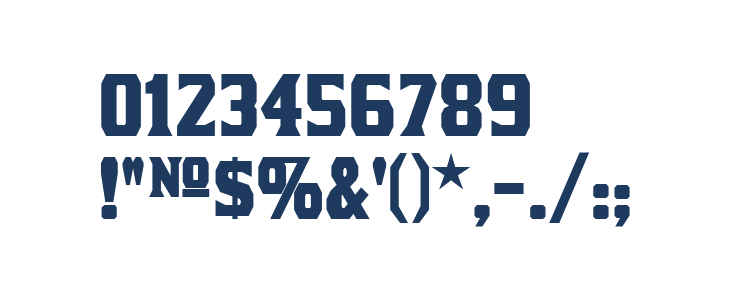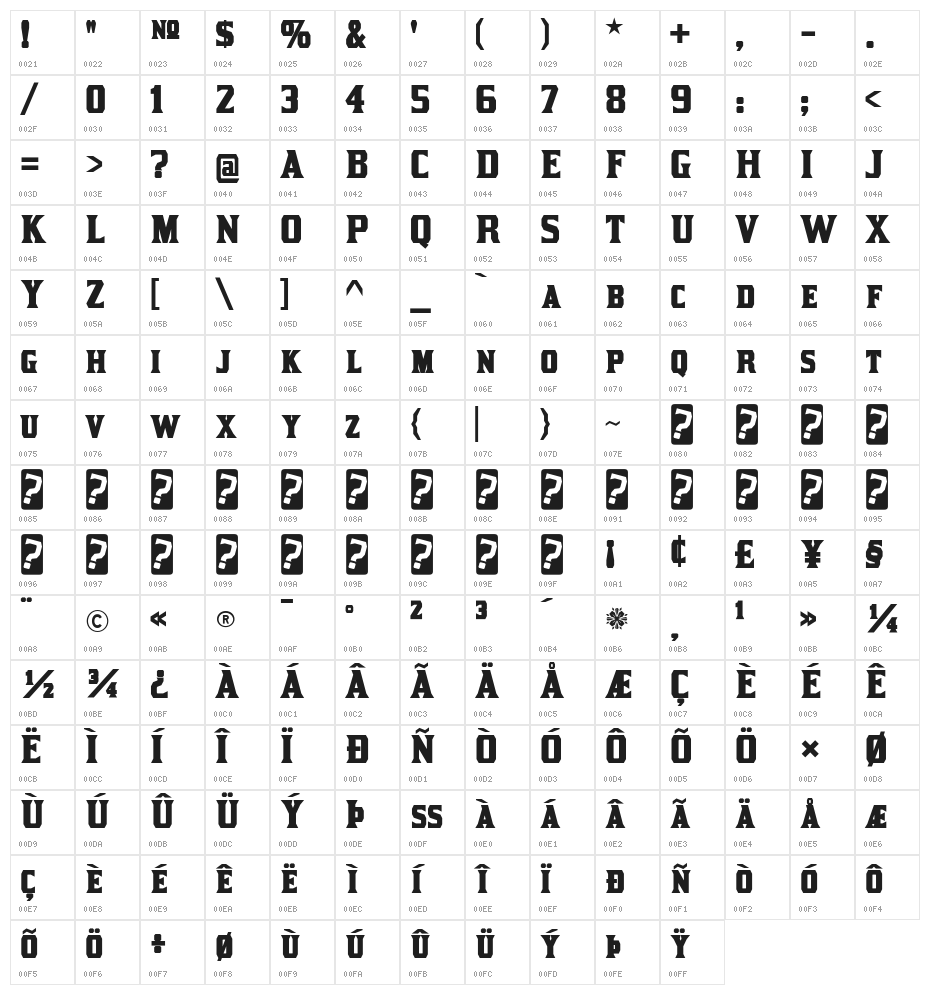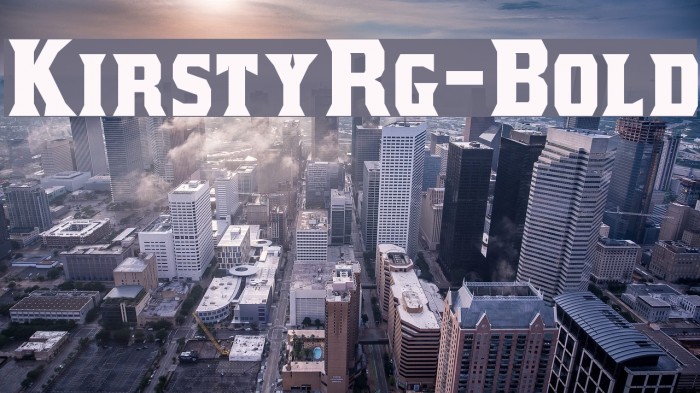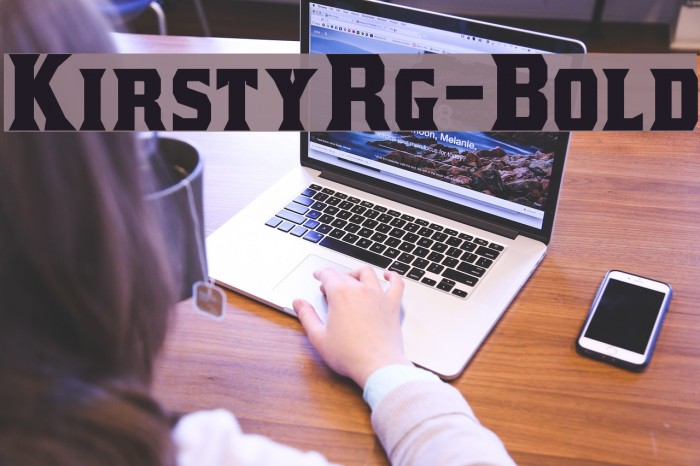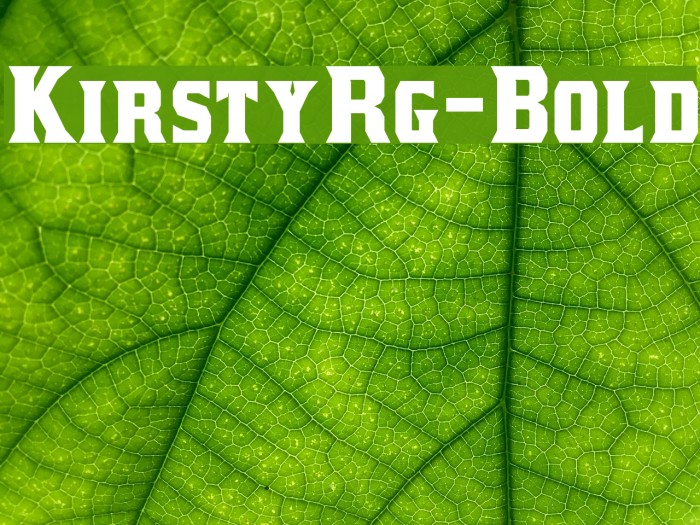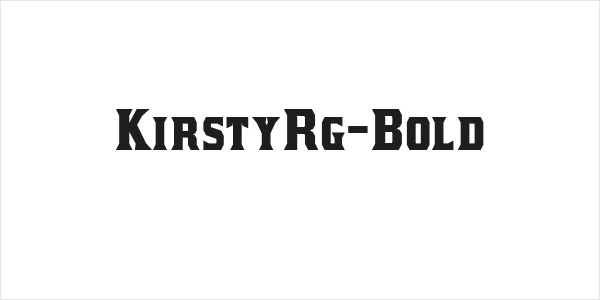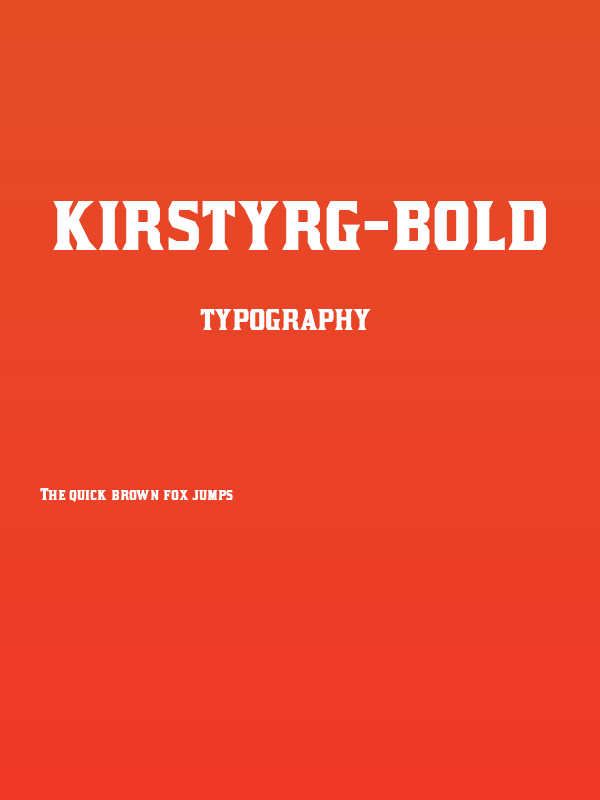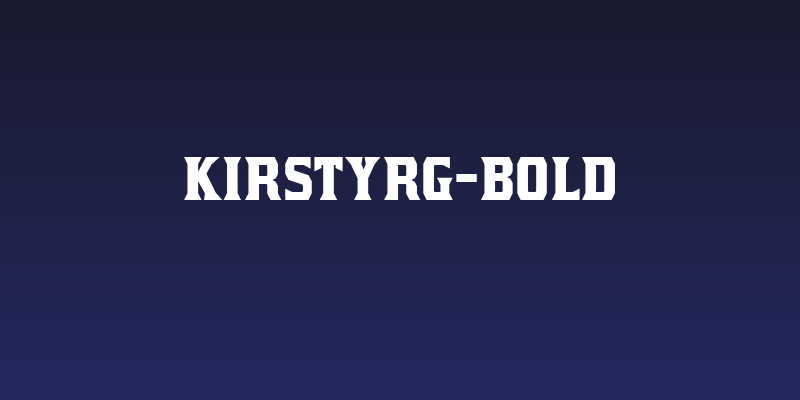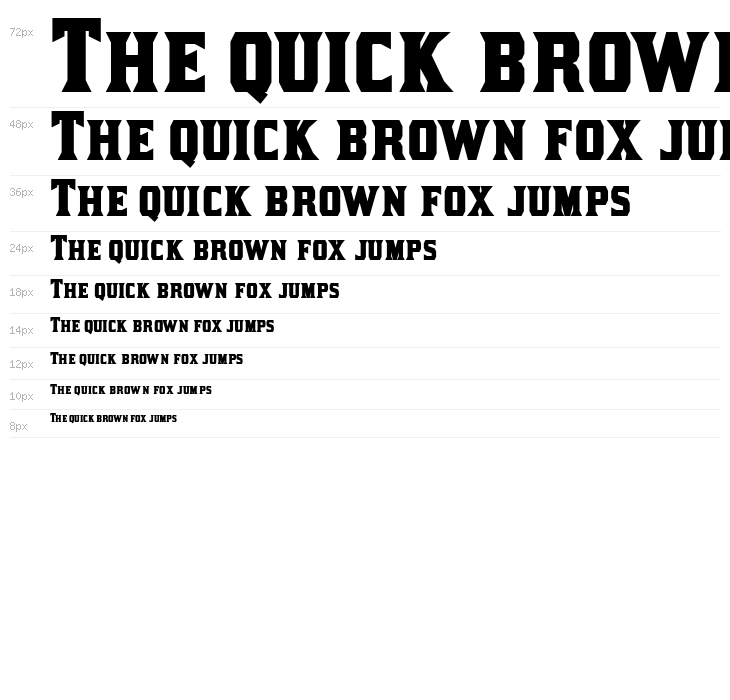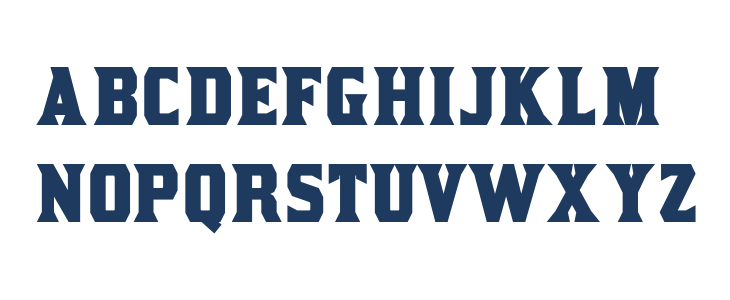
KirstyRg-Bold Font
KirstyRg-Bold Description
This bold and striking font features a strong, angular design with sharp edges and a commanding presence. The uppercase letters are particularly prominent, with a geometric style that emphasizes their boldness. The numbers and special characters maintain this robust aesthetic, making them stand out. The font's design is reminiscent of vintage or retro styles, yet it carries a modern twist with its clean lines and structured form. It is well-suited for projects that require a bold statement, such as posters, headlines, or branding materials. The font's unique character shapes add a distinctive touch to any design, ensuring it captures attention.
Overall StyleVintage, Modern
Proposed ProjectsIdeal for posters, branding, headlines, and any design needing a bold statement.